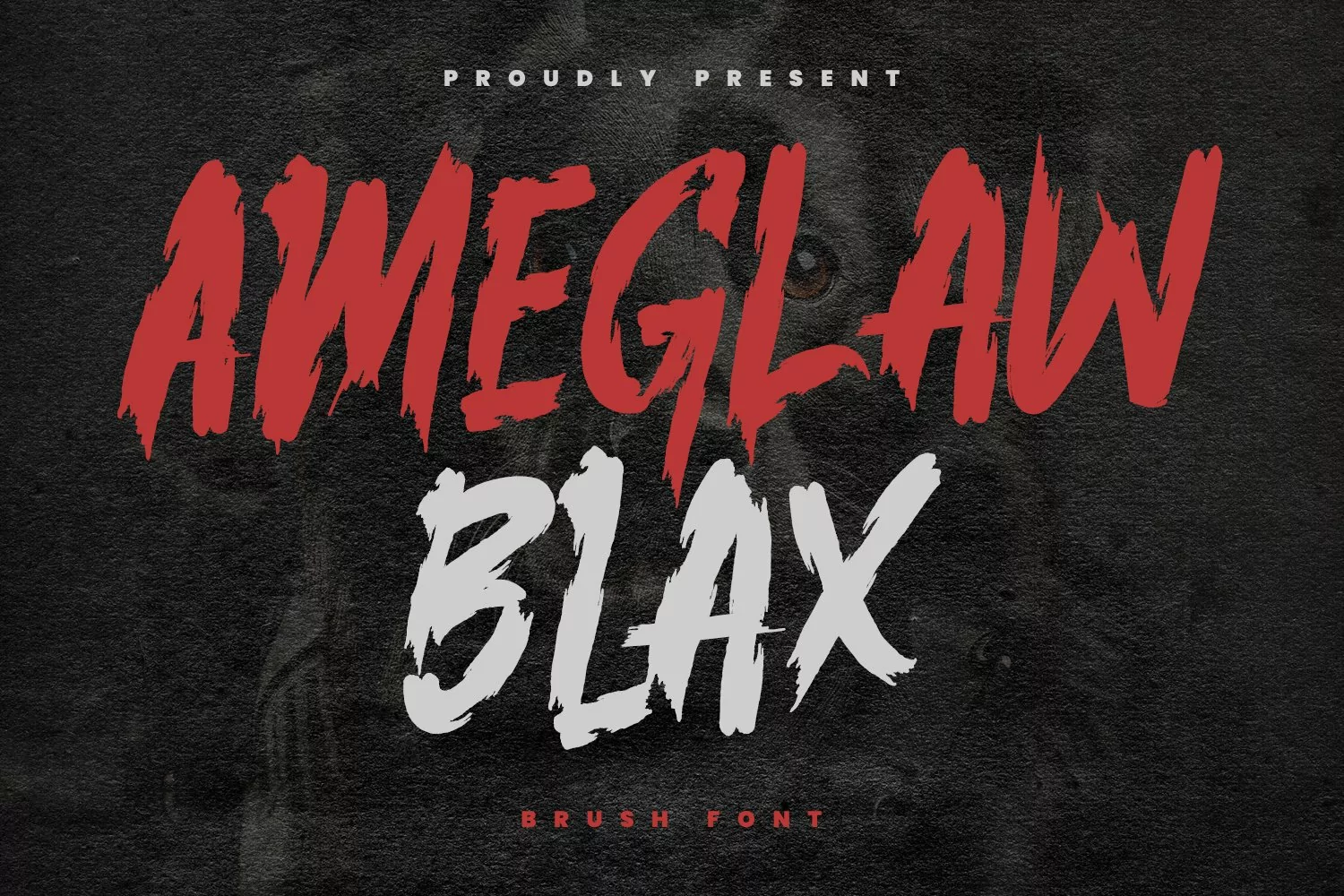
Ameglaw Blax is handmade brush display font, fun character with alternates. To give you an extra creative work. Ameglaw Blax handmade brush display font support multilingual language.